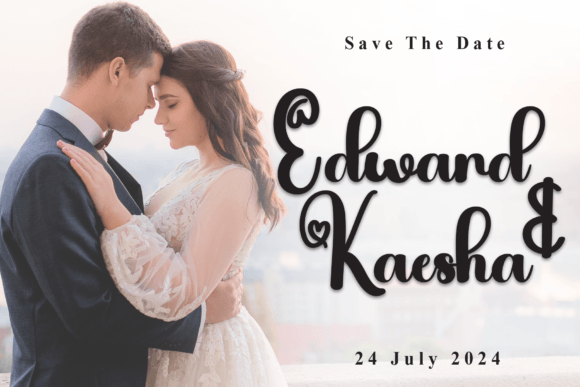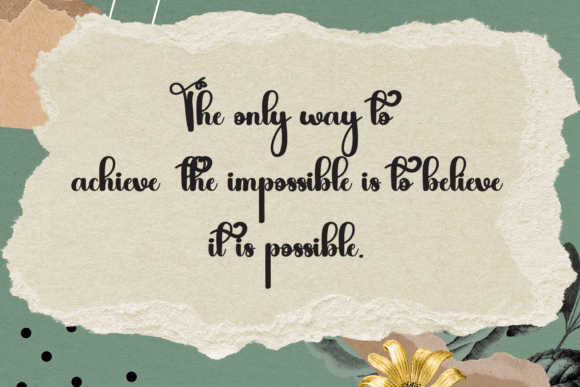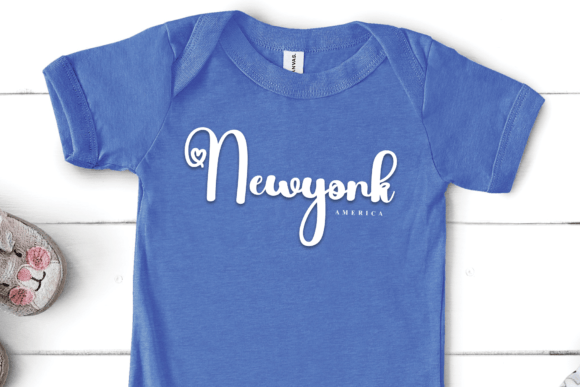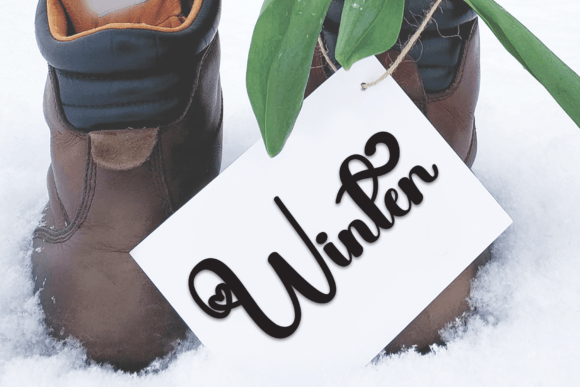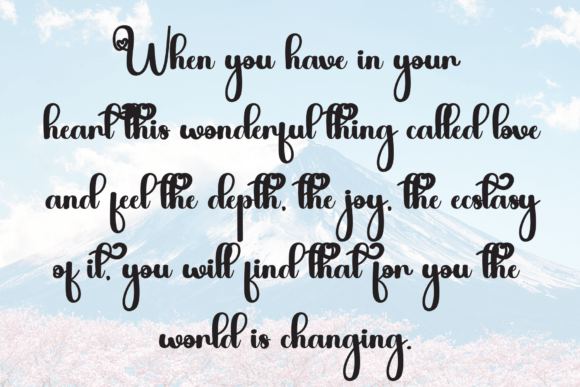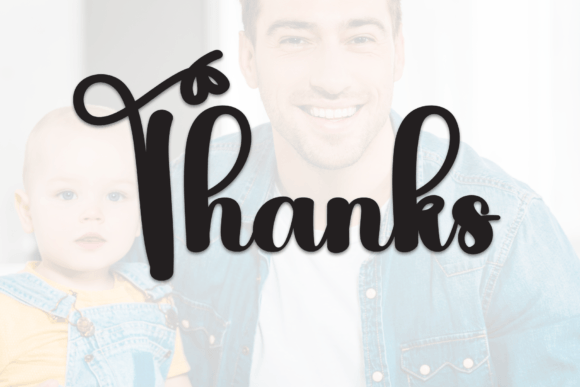
Daddy Handsome Font: Add a Touch of Whimsy to Your Designs
Are you looking for a font that can add a dash of warmth and playfulness to your designs? Look no further than the Daddy Handsome Font! This delightful, handwritten style display font is perfect for creating eye-catching wedding invites, custom cards, and other design projects that require a fun and vivacious touch.
The Charm of Daddy Handsome Font
The Daddy Handsome Font is a unique and charming typeface that is sure to capture the hearts of designers and crafters alike. Its warm and whimsical feel makes it an excellent choice for a wide range of design projects, from wedding stationery to social media graphics. With its friendly and approachable vibe, this font is guaranteed to make your designs stand out from the crowd.
Perfect for Wedding Invites and Custom Cards
Wedding invites and custom cards are a great way to showcase the Daddy Handsome Font. Its elegant and playful feel makes it perfect for sharing the joy and excitement of special occasions with friends and family. Whether you’re designing a formal wedding invitation or a casual birthday card, this font is sure to add a touch of personality and whimsy to your design.
Why Designers and Crafters Love Daddy Handsome Font
So, what makes the Daddy Handsome Font so popular among designers and crafters? Here are just a few reasons why this font has become a favorite:
• Unique and eye-catching: The Daddy Handsome Font has a distinctive and stylish feel that sets it apart from more traditional fonts.
• Versatile: This font can be used for a wide range of design projects, from wedding stationery to social media graphics.
• Easy to read: Despite its playful feel, the Daddy Handsome Font is surprisingly easy to read, making it perfect for both headings and body text.
• Customizable: With its range of weights and styles, the Daddy Handsome Font can be tailored to suit your design needs.
Tips for Using Daddy Handsome Font
To get the most out of the Daddy Handsome Font, here are a few tips to keep in mind:
• Use it sparingly: While the Daddy Handsome Font is undoubtedly eye-catching, it’s best used in moderation. Try pairing it with a simpler font for body text to create visual interest.
• Experiment with colors: The Daddy Handsome Font looks great in a range of colors, from bright and bold to soft and pastel.
• Add some texture: To give your design an extra layer of depth and interest, try adding some texture or patterns to your background or graphics.
In conclusion, the Daddy Handsome Font is a delightful and charming typeface that is sure to add a touch of whimsy and playfulness to your designs. With its warm and friendly feel, this font is perfect for wedding invites, custom cards, and any design project that requires a fun and vivacious flourish. So why not give it a try and experience the magic of the Daddy Handsome Font for yourself?
The Daddy Handsome Font is a unique and charming typeface that is sure to bring a smile to the faces of designers and crafters alike. With its warm and whimsical feel, this font is perfect for adding a touch of personality and playfulness to your designs. So why not give it a try and see the difference it can make to your next design project?